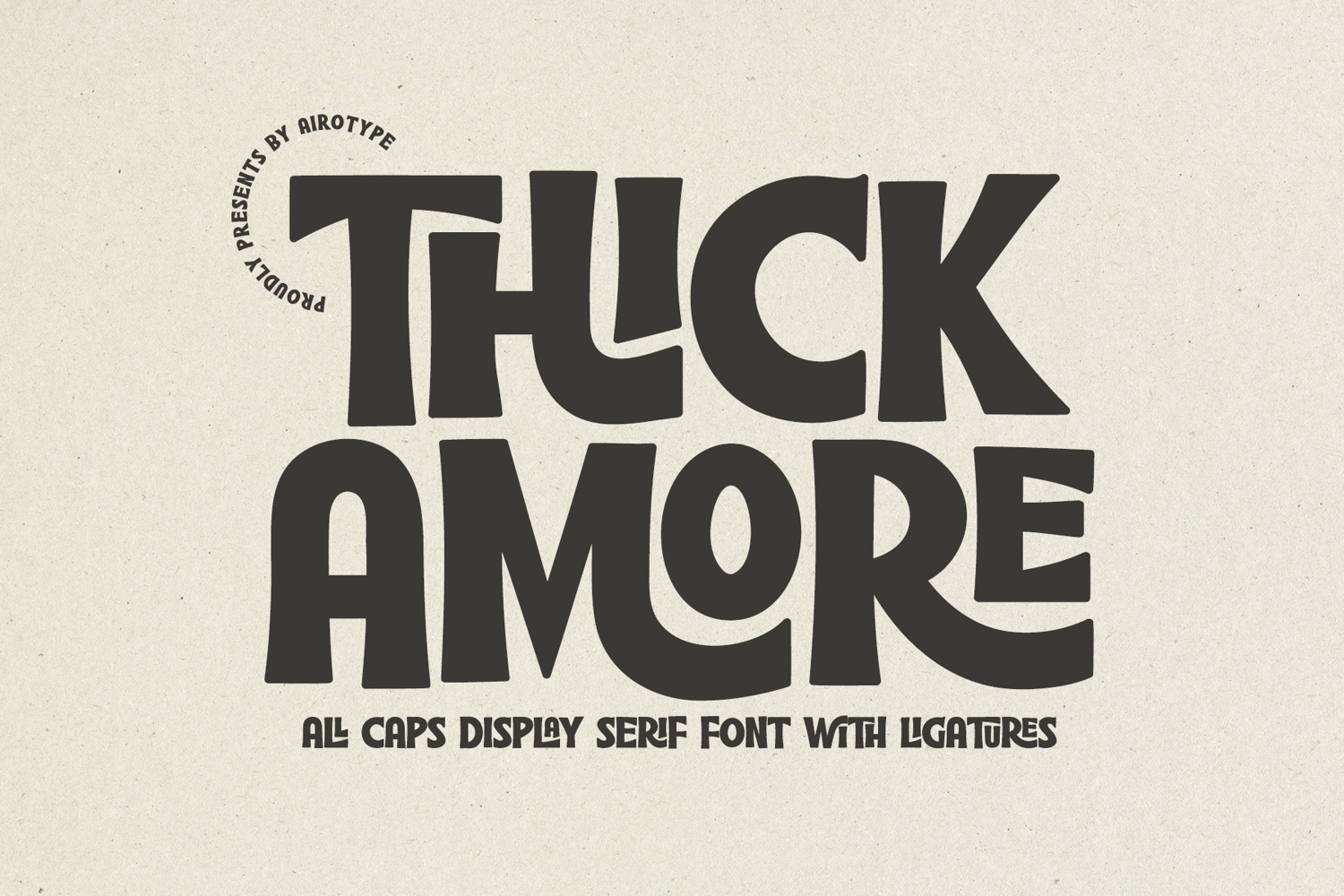
Thick Amore is all caps cute serif font with bouncy and cute looks. This font is delightful and charming to embodies playful vibes.
Thick Amore has few ligatures, to give more playful imagination into the design.
- All Caps with few ligatures